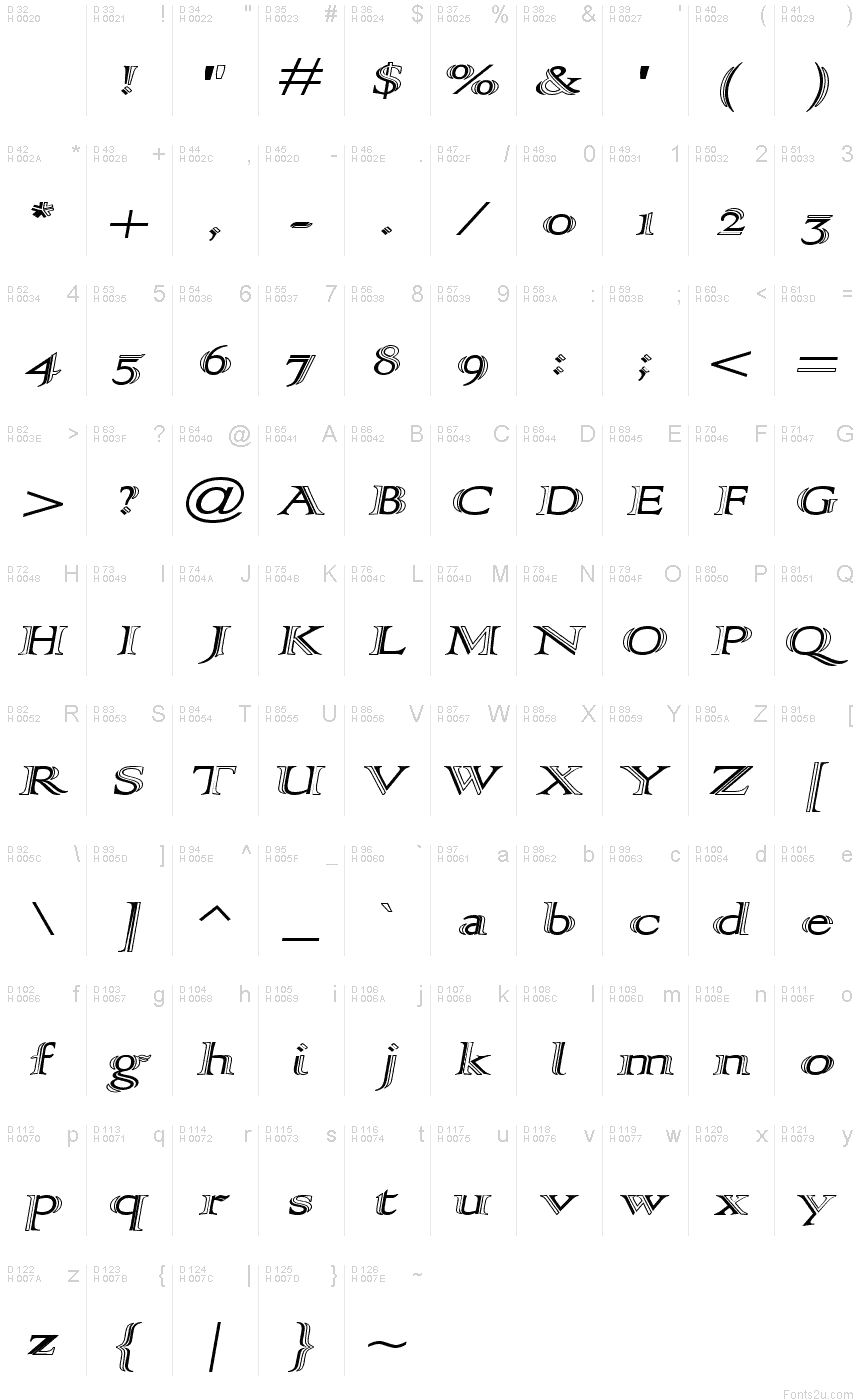
AlphaRev
AlphaRev font by GemFonts is a free retro decorative typeface that looks like it’s been pulled from an old carnival sign or a vintage magic poster. Each letter tilts and sways with a hand-drawn flair, while the twin inky outlines create a hollow, engraved feel that almost buzzes on the page. It’s quirky, theatrical, and loaded with character, giving even a single word the drama of a full headline.
Using AlphaRev, bold titles snap into focus for posters, event flyers, book covers, packaging, album art, and statement logos. The slim inner counters keep the letters readable at larger sizes, where all the layered line work can really show off. For balance, pair this free font with a plain, understated sans serif for body text, and let AlphaRev handle the attention-grabbing moments.